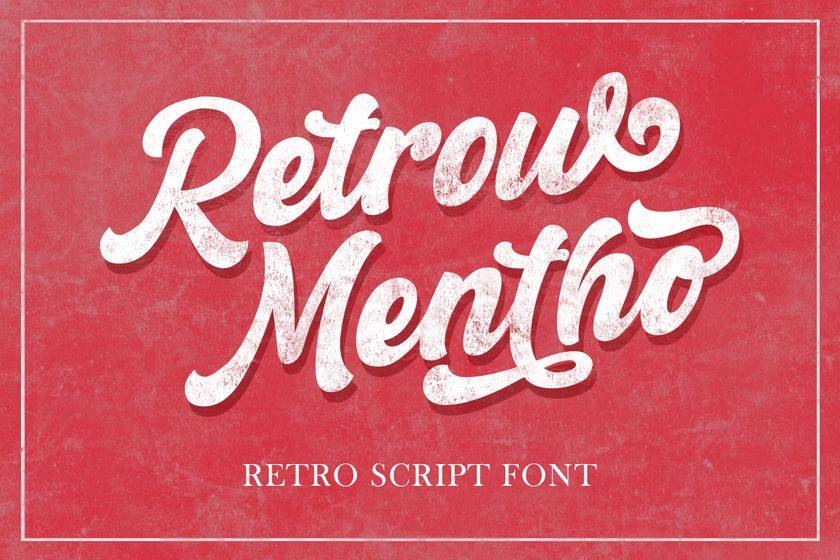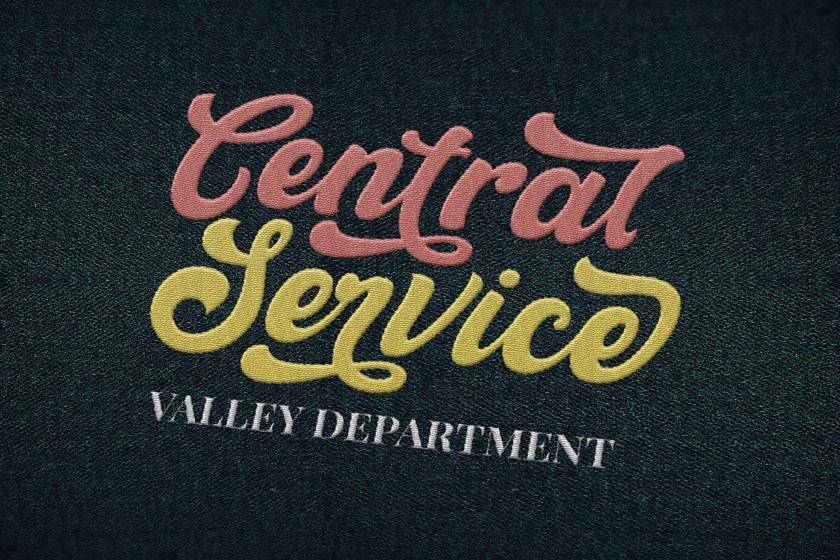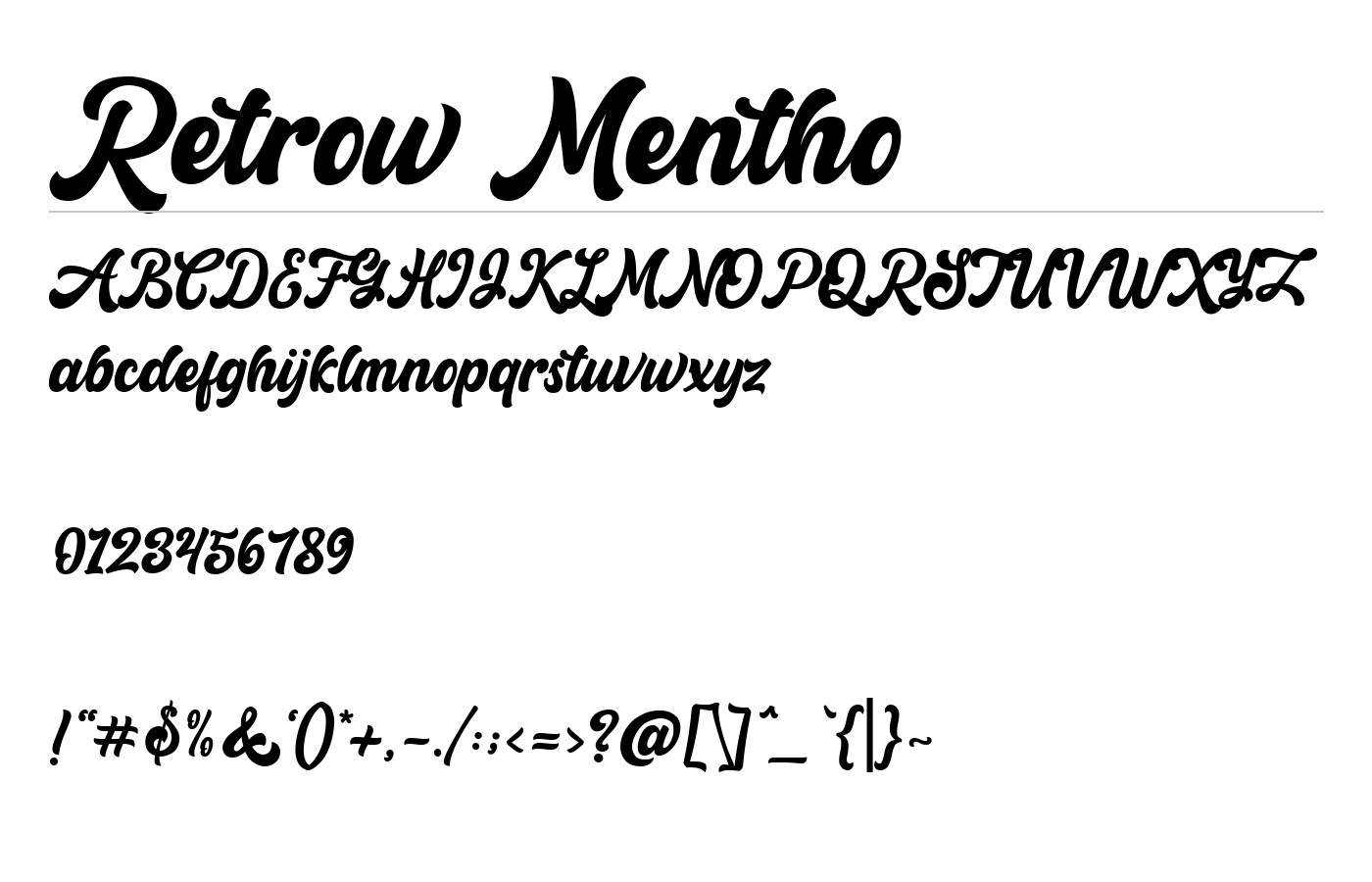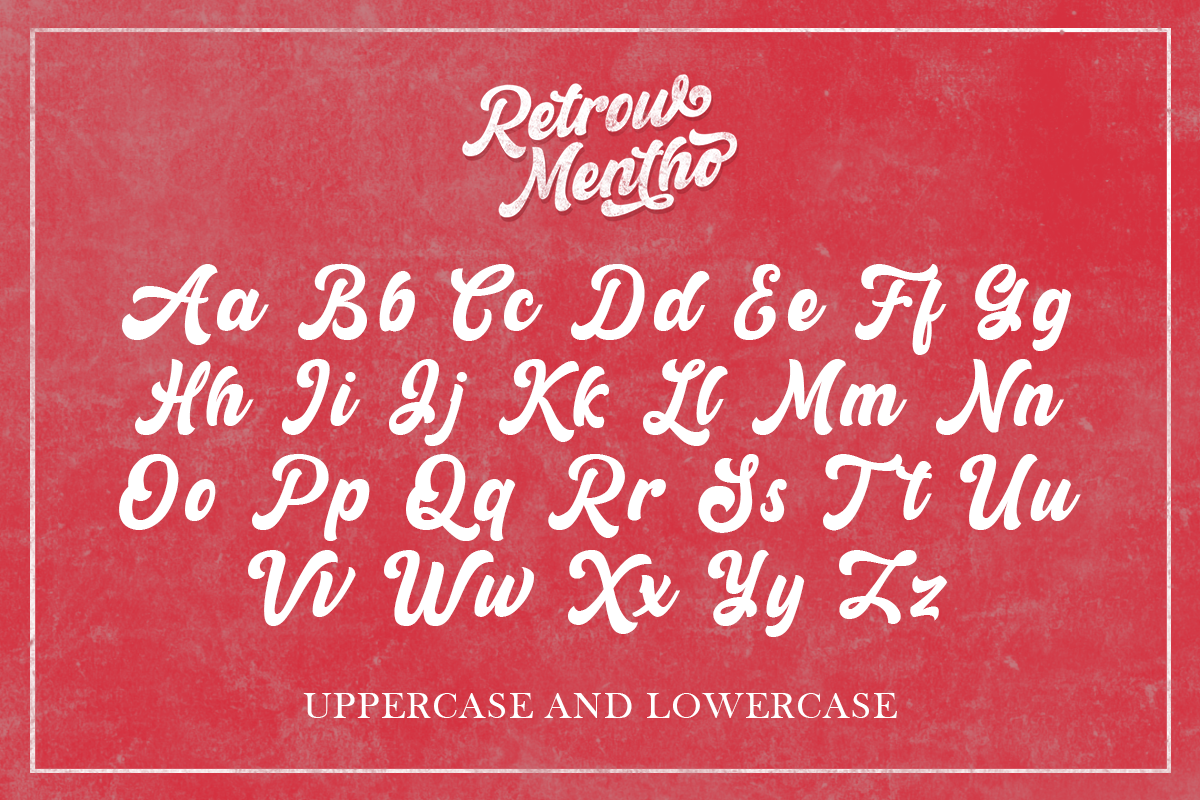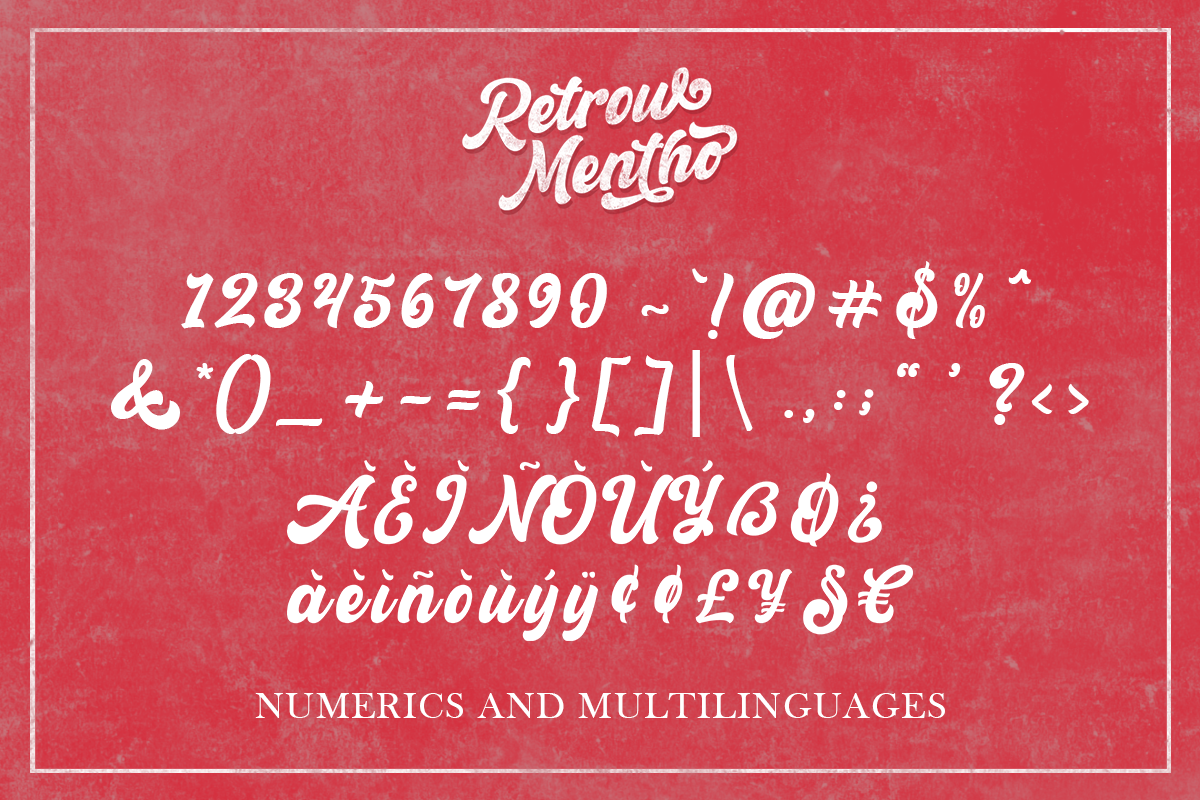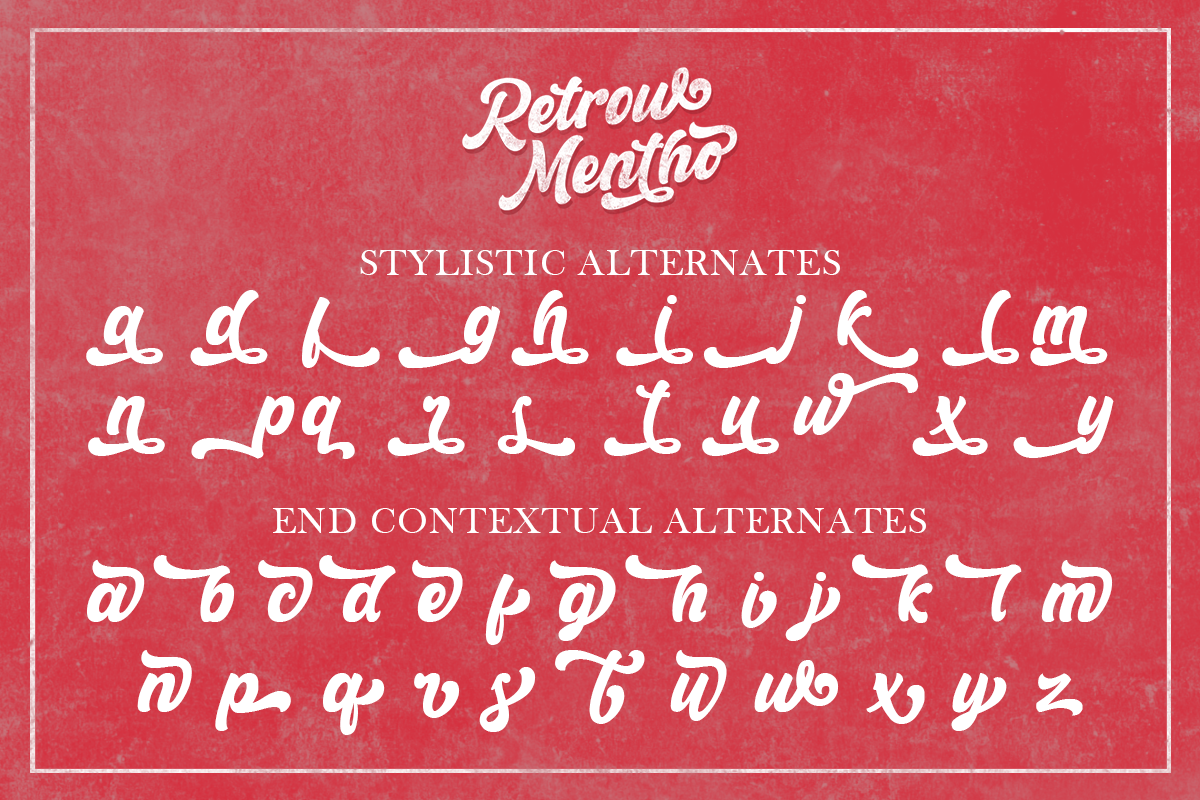
Retrow Mentho is a bold, script-style font with a playful and vintage flair, featuring smooth, rounded strokes and lively letterforms that evoke a retro charm. Its flowing, connected characters and medium-high contrast make it ideal for branding, logos, and headlines that seek a friendly yet distinct personality. This font works wonderfully in designs looking to capture a nostalgic, creative, or casual mood, making it perfect for packaging, posters, and eye-catching editorial projects.
Retrow Mentho
About Retrow Mentho